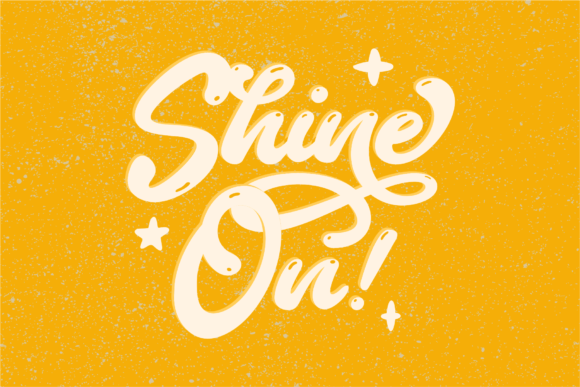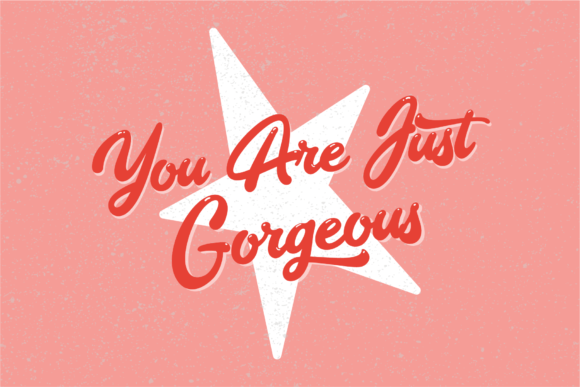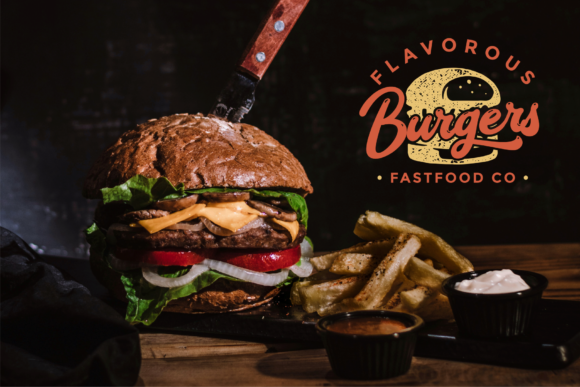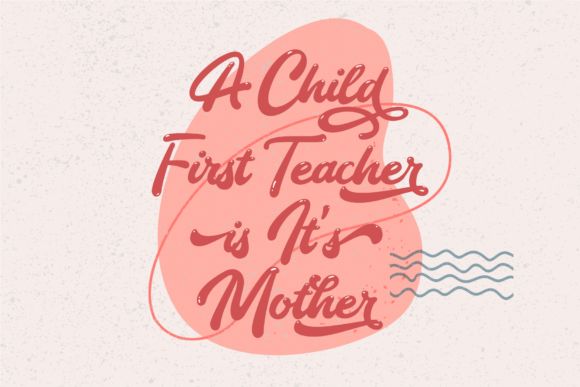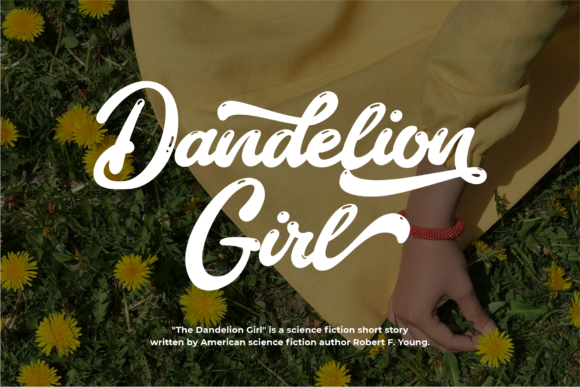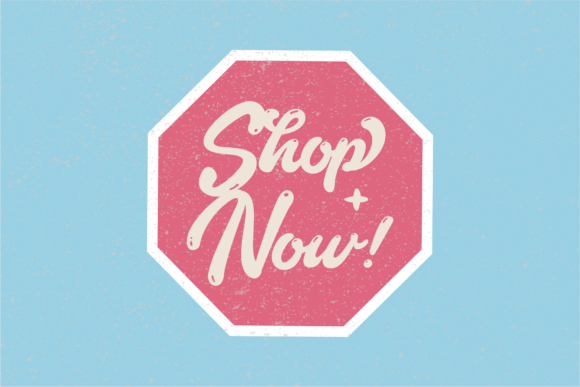
Introducing Choco Berry Font: The Perfect Addition to Your Design Arsenal
Are you tired of using the same old fonts for your design projects? Look no further! Choco Berry Font is here to revolutionize the way you approach typography. This stunning handwritten font is designed to add a touch of elegance and sophistication to your headlines and logotype projects. With its bold and confident appearance, Choco Berry Font is sure to make your designs stand out from the crowd.
The Characteristics of Choco Berry Font
So, what makes Choco Berry Font so special? For starters, it’s a gorgeous and bold handwritten font that’s crafted to give your designs a stylish touch. The font reads as strong, confident, and dynamic, making it perfect for designers who want to add a bit of personality to their work. Whether you’re working on a logo, a headline, or a packaging design, Choco Berry Font is sure to make a lasting impression.
One of the standout features of Choco Berry Font is its nostalgic character. The font has a retro vibe that’s reminiscent of classic designs from the past. This makes it perfect for designers who want to add a bit of vintage flair to their work. Whether you’re going for a classic look or a more modern aesthetic, Choco Berry Font is versatile enough to fit the bill.
Why Designers Love Choco Berry Font
So, why do designers love Choco Berry Font? For one, it’s incredibly easy to use. The font is compatible with a wide range of design software, making it simple to integrate into your workflow. Plus, the font is highly legible, even at small sizes. This makes it perfect for designers who need to create designs that are both visually appealing and functional.
Another reason designers love Choco Berry Font is its flexibility. The font comes in a range of weights and styles, making it easy to use in a variety of design contexts. Whether you’re working on a bold and dramatic headline or a more subtle and understated logotype, Choco Berry Font has got you covered.
How to Use Choco Berry Font in Your Designs
So, how can you use Choco Berry Font in your designs? Here are a few ideas to get you started:
- Logos and branding: Choco Berry Font is perfect for creating bold and eye-catching logos that make a lasting impression.
- Headlines and titles: The font’s strong and confident appearance makes it perfect for headlines and titles that need to grab attention.
- Packaging design: Choco Berry Font is a great choice for packaging design, adding a touch of elegance and sophistication to product labels and packaging.
- Advertising and marketing: The font’s nostalgic character makes it perfect for advertising and marketing campaigns that want to evoke a sense of classic style.
Tips and Tricks for Getting the Most Out of Choco Berry Font
Here are a few tips and tricks for getting the most out of Choco Berry Font:
- Experiment with different weights and styles: Choco Berry Font comes in a range of weights and styles, so don’t be afraid to experiment and find the one that works best for your design.
- Pair with other fonts: Choco Berry Font pairs well with a range of other fonts, so try combining it with other fonts to create a unique and interesting look.
- Use it sparingly: While Choco Berry Font is a beautiful font, it can be overwhelming if used too much. Use it sparingly to add a touch of elegance and sophistication to your designs.
In conclusion, Choco Berry Font is a gorgeous and bold handwritten font that’s perfect for designers who want to add a touch of elegance and sophistication to their work. With its strong and confident appearance, nostalgic character, and versatility, Choco Berry Font is sure to become a staple in your design arsenal. So why wait? Download Choco Berry Font today and start creating stunning designs that make a lasting impression!